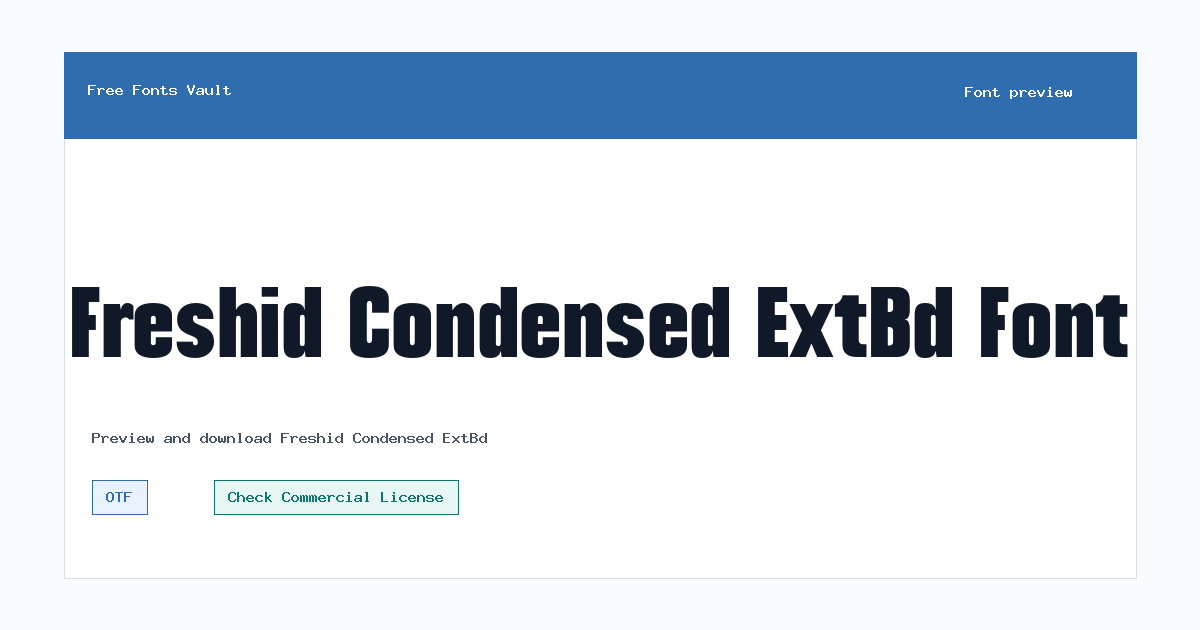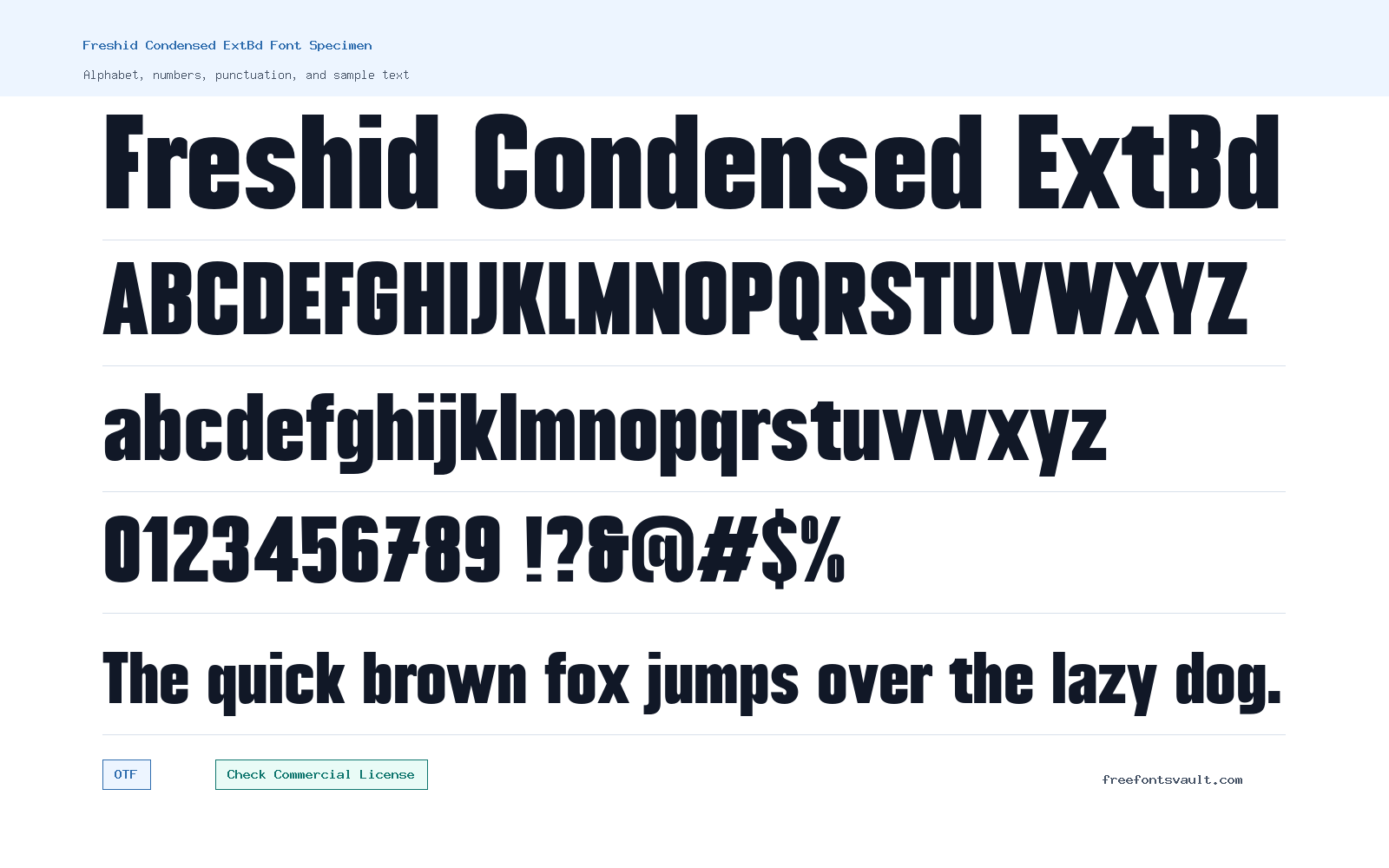
Freshid Condensed ExtBd
- Designer Wafi ZImamul
- Foundry Wappitype
Freshid Condensed ExtBd font.
Freshid Condensed ExtBd is a narrow, extra-bold display font built for short text that needs weight without taking up too much horizontal space.
If you are building a poster or thumbnail, compare it against the lighter Freshid cuts before finalizing. The extra-bold style brings more impact, but it also needs cleaner spacing and fewer words to stay sharp.
About Freshid Condensed ExtBd
Freshid Condensed ExtBd uses a condensed structure with heavy letterforms, making it a practical choice for titles, poster lines, banners, packaging-style labels, and other display settings where space is limited. The ExtraBold style gives words a firm presence, so it works best when the message is short and direct.
Use the preview box to test uppercase words, numbers, and tight phrases before downloading. Condensed heavy fonts can look strong at large sizes, but they may lose comfort in long paragraphs or very small text. For cleaner layouts, pair Freshid Condensed ExtBd with a simpler sans serif for body copy and keep this font for headlines, buttons, covers, and callouts.
- Condensed ExtraBold style for strong display typography
- Posters, banners, and bold title text
- Labels, thumbnails, short headlines, and compact display layouts
Freshid Condensed ExtBd is credited to Wafi ZImamul, with Wappitype listed as the foundry.
Keep it for short, high-impact text. Test letter spacing in the preview, especially with all-caps words, because condensed extra-bold fonts can feel crowded when spacing is too tight. The extra-bold condensed style can create strong vertical impact, but it fills space quickly. Use fewer words, keep the line breaks clean, and avoid squeezing it into narrow buttons or small captions. For balanced layouts, pair it with a quieter regular text font and let this variant handle the main title only. This keeps the composition clear.
What type of font is Freshid Condensed ExtBd?
It is a condensed extra-bold display font, best suited for short headings and bold visual text rather than long reading passages.
Is Freshid Condensed ExtBd good for body text?
It is better for display use. The narrow, heavy style can be harder to read in long paragraphs, so use a simpler companion font for body copy.